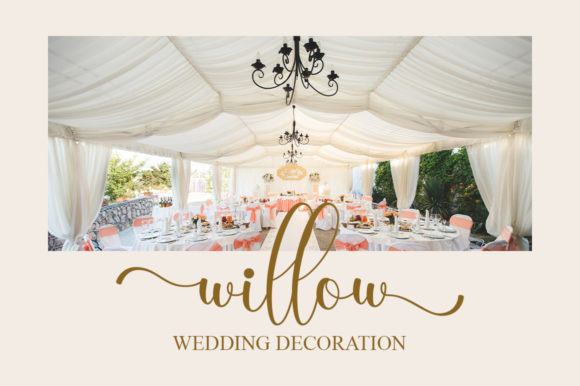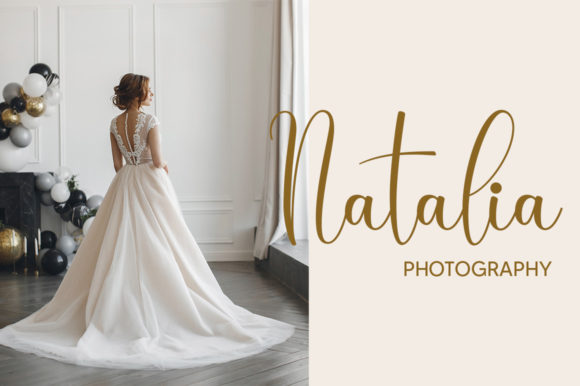
Kayla Font
db-ku.com - Script & Handwritten -- Kayla is a lovely and timeless handwritten font. It is the best choice for creating eye catching logos, branding and quotes. Kayla is PUA encoded which means you can access all of the glyphs and swashes with ease!